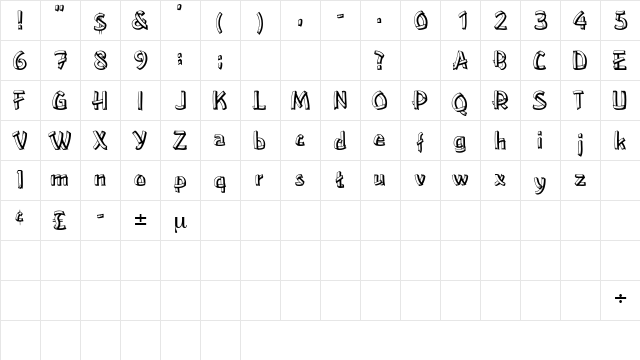
HomeboyDisplaySSK Regular Font Preview
HomeboyDisplaySSK Regular
Design Context for HomeboyDisplaySSK Typeface
HomeboyDisplaySSK brings ornamental detail and strong personality to headlines and identities, where visual impact matters more than quiet functionality.
Font Pairing: Pair with a clean neutral sans-serif for body copy to let HomeboyDisplaySSK's character lead without overwhelming the composition.
Pro Tip: Treat HomeboyDisplaySSK as the centrepiece of your typographic hierarchy. One strong heading set in a decorative face can carry an entire layout.